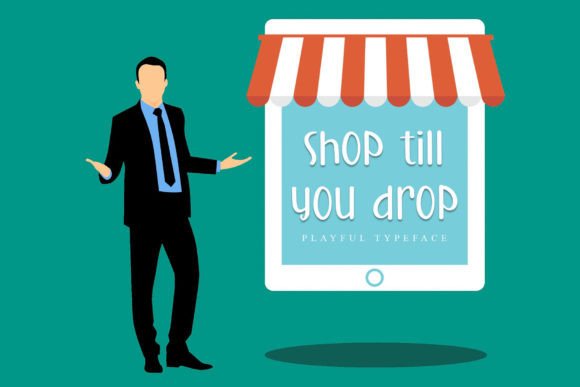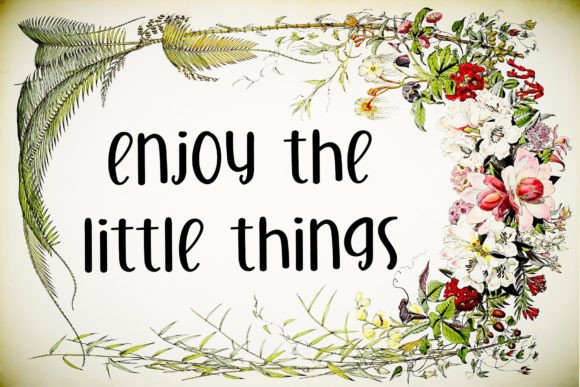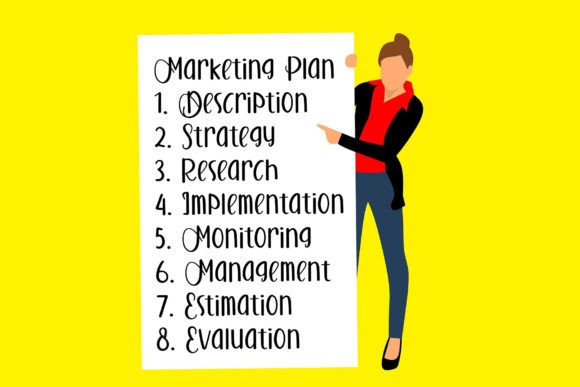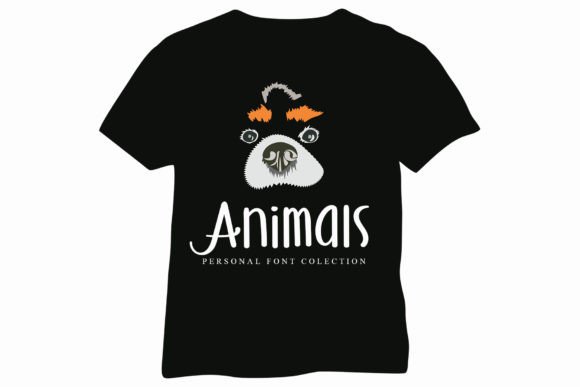
Introducing Doctor Font: The Elegant Handwritten Touch for Your Designs
Are you a designer or crafter looking for a unique and elegant font to elevate your creations? Look no further than Doctor Font, a stunning handwritten font that adds a touch of sophistication to any design. With its varied baseline and natural, hand-made touch, Doctor Font is perfect for wedding invitations, greeting cards, billboards, logos, business cards, and any other design that requires a personal and elegant feel.
The Unique Features of Doctor Font
Doctor Font is not just any ordinary font. Its unique features set it apart from other fonts, making it a standout choice for designers and crafters. Here are some of the key features that make Doctor Font special:
- Varied Baseline: Doctor Font features a varied baseline, which gives it a natural, hand-made touch. This means that each letter and word has a unique and organic feel, making your designs look more realistic and personal.
- PUA Encoded: Doctor Font is PUA (Private Use Area) encoded, which means that you can access all glyphs and swashes with ease. This makes it easy to use and customize the font to suit your design needs.
- Elegant and Sophisticated: Doctor Font has an elegant and sophisticated feel, making it perfect for designs that require a high level of professionalism and style.
Uses of Doctor Font
Doctor Font is a versatile font that can be used for a wide range of design projects. Here are some of the ways you can use Doctor Font:
- Wedding Invitations: Doctor Font is perfect for wedding invitations, adding a touch of elegance and sophistication to your designs.
- Greeting Cards: Use Doctor Font to create beautiful and personalized greeting cards for special occasions.
- Billboards: Doctor Font can be used to create eye-catching billboards that grab the attention of your audience.
- Logos: Use Doctor Font to create unique and memorable logos for your business or brand.
- Business Cards: Doctor Font is perfect for business cards, adding a touch of professionalism and style to your designs.
Why Choose Doctor Font?
With so many fonts available, why choose Doctor Font? Here are some reasons why Doctor Font stands out from the rest:
- Unique and Elegant: Doctor Font has a unique and elegant feel that sets it apart from other fonts.
- Highly Versatile: Doctor Font can be used for a wide range of design projects, from wedding invitations to billboards.
- Easy to Use: Doctor Font is PUA encoded, making it easy to access all glyphs and swashes.
- Time-Saving: With Doctor Font, you can create stunning designs in no time, saving you time and effort.
Tips for Using Doctor Font
Here are some tips for using Doctor Font to get the most out of this amazing font:
- Experiment with Different Sizes: Doctor Font looks great in different sizes, so experiment with different sizes to find the one that works best for your design.
- Pair with Other Fonts: Doctor Font can be paired with other fonts to create a unique and interesting design.
- Use Swashes and Glyphs: Take advantage of the PUA encoding and use swashes and glyphs to add a personal touch to your designs.
In conclusion, Doctor Font is a unique and elegant font that adds a touch of sophistication to any design. With its varied baseline, PUA encoding, and elegant feel, Doctor Font is perfect for designers and crafters looking for a high-quality font. Whether you’re creating wedding invitations, greeting cards, billboards, logos, or business cards, Doctor Font is a versatile font that can help you create stunning designs. So why wait? Download Doctor Font today and take your designs to the next level!